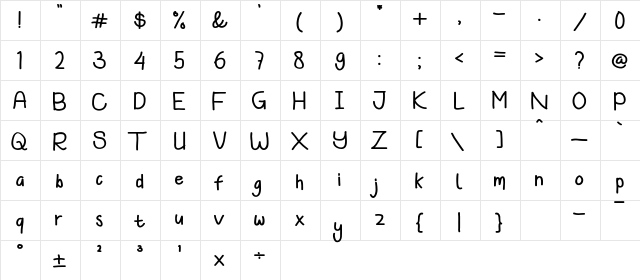
Koowalsky Regular
| Designer | Madatype Studio |
Design Context for Koowalsky Typeface
Koowalsky offers clean, dependable letterforms without strong stylistic allegiance, making it a practical choice for designers who need flexibility.